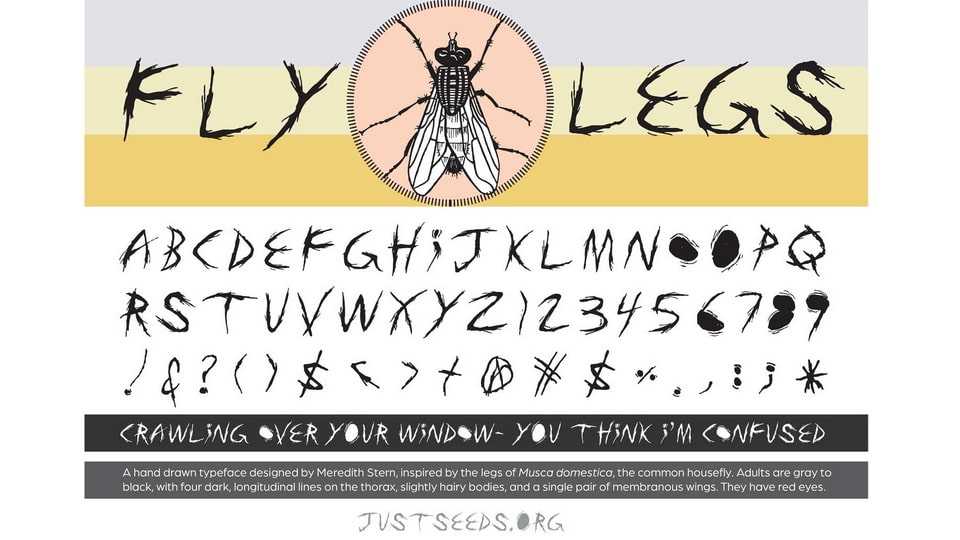
Download Fly Legs font, a hand drawn typeface inspired by the legs of the common house fly. This unique font captures the whimsical elegance and organic beauty of nature, infusing your designs with a touch of playful sophistication.
Designer: Meredith Stern